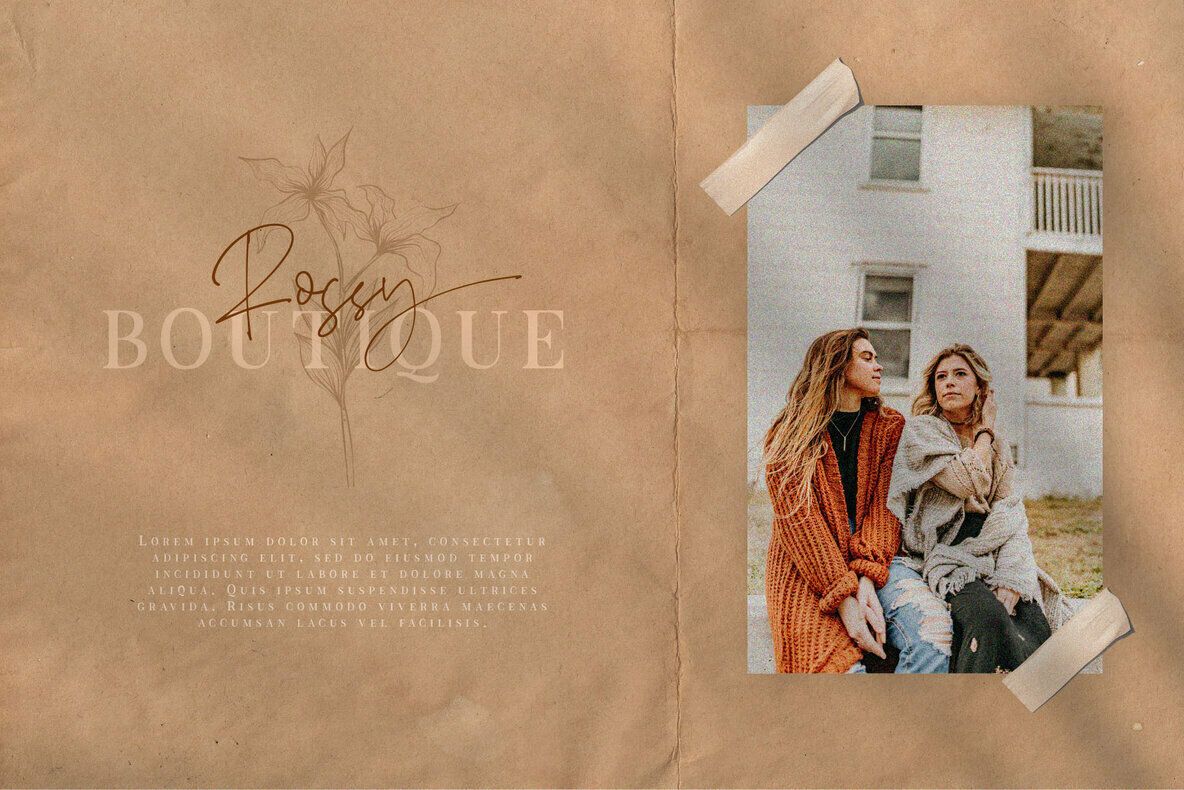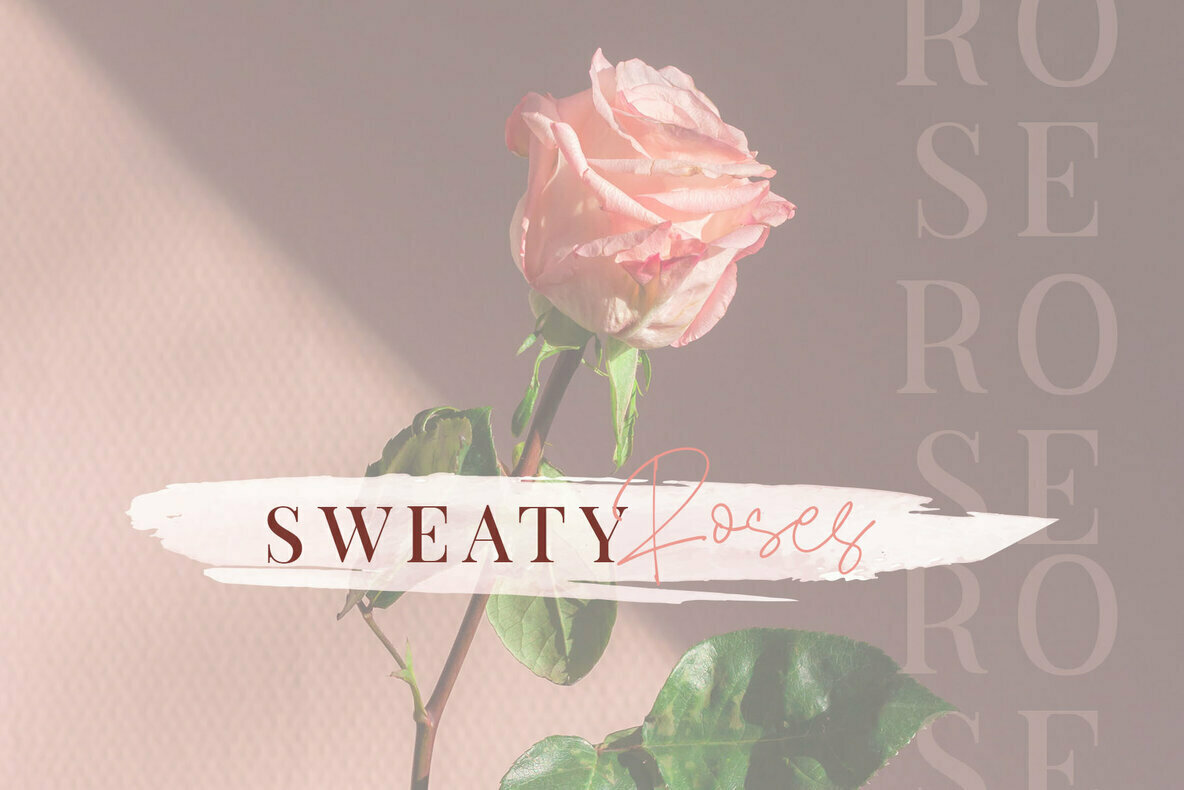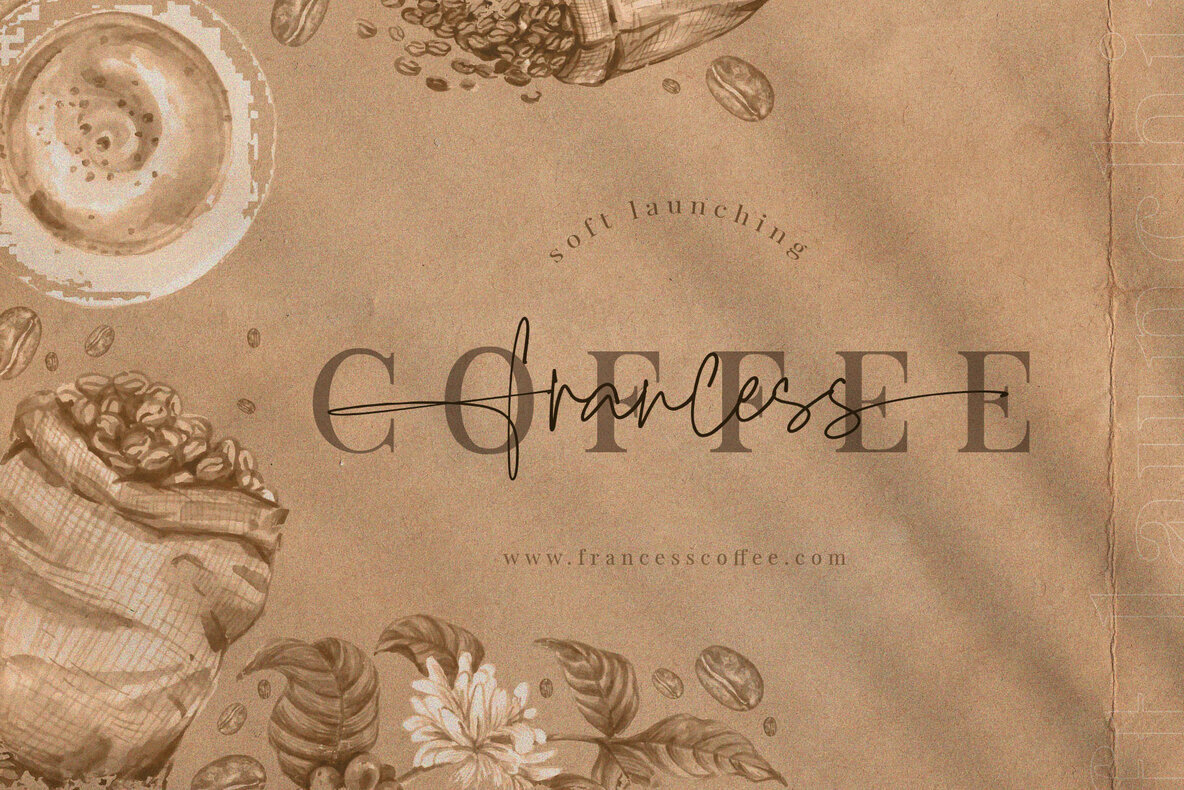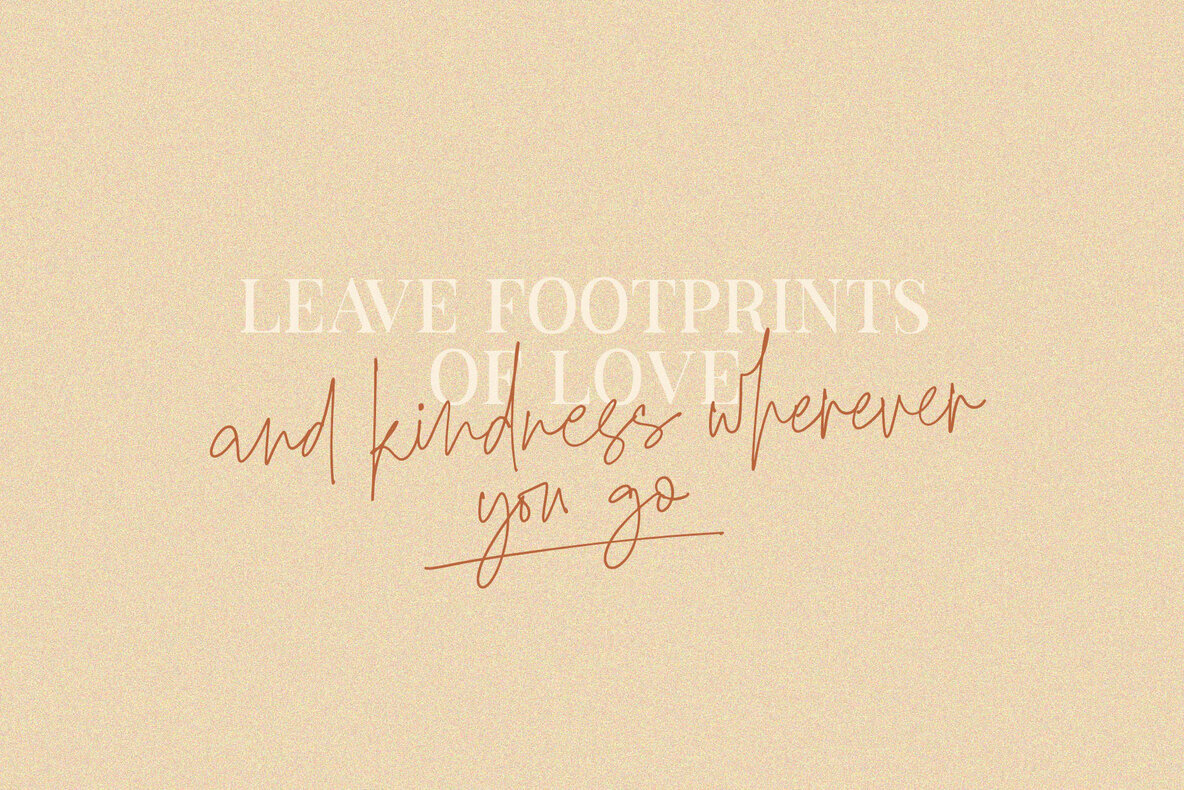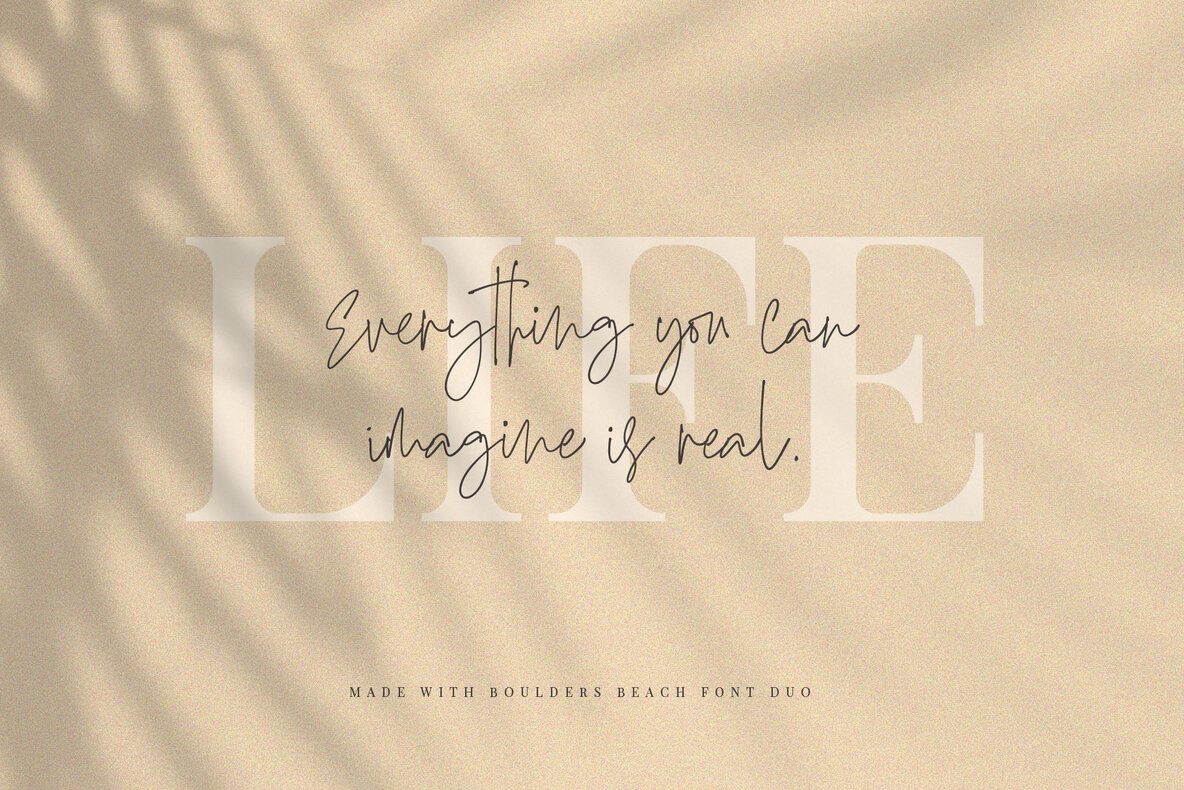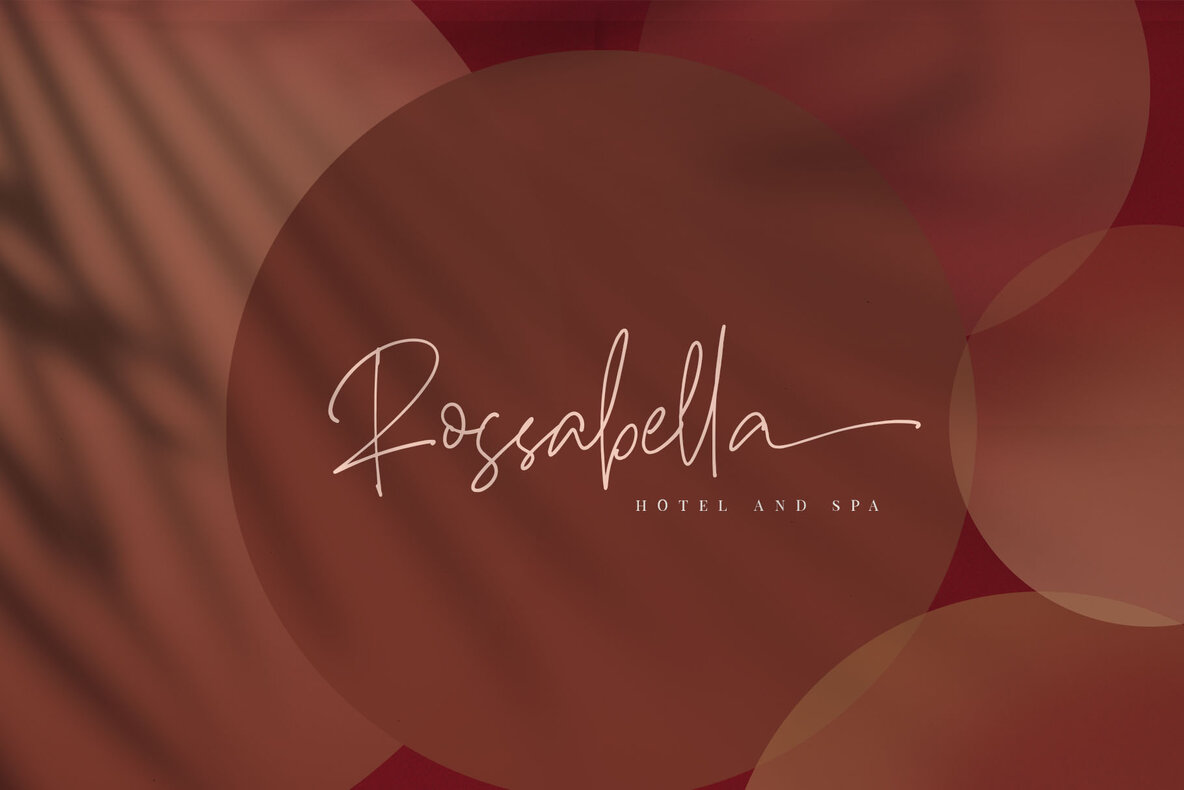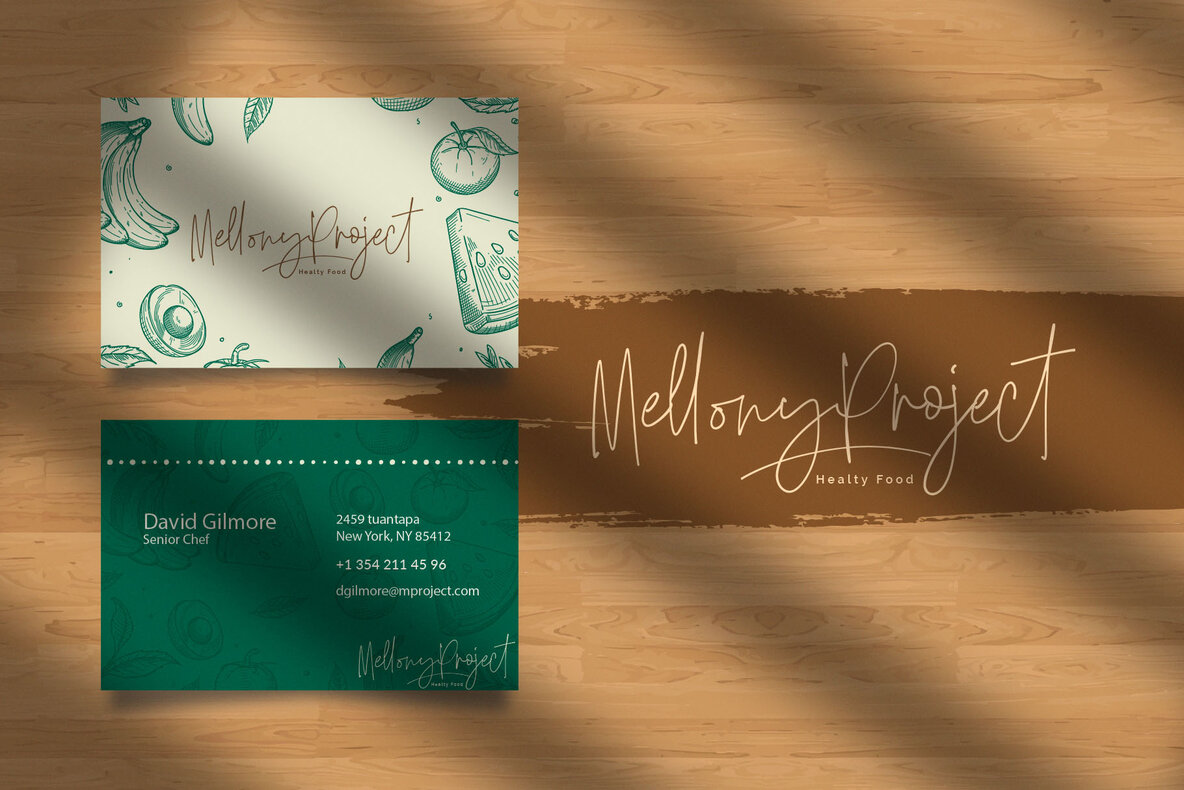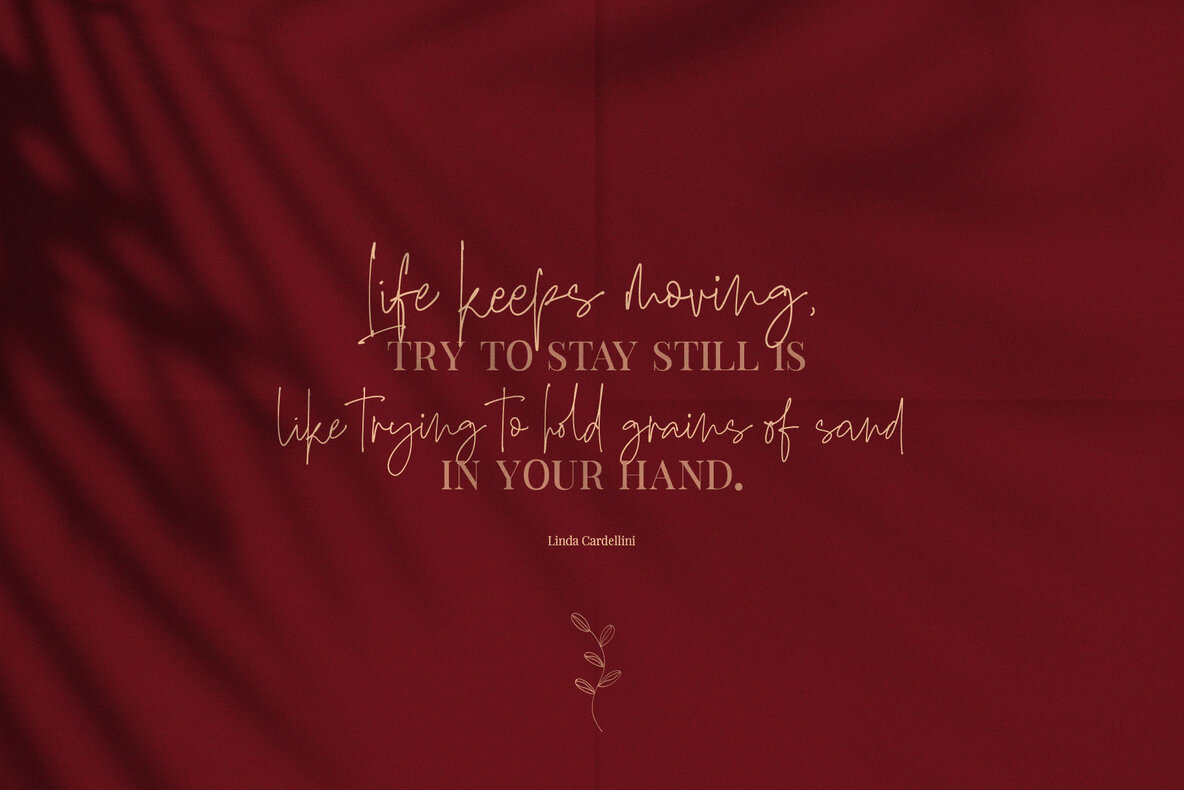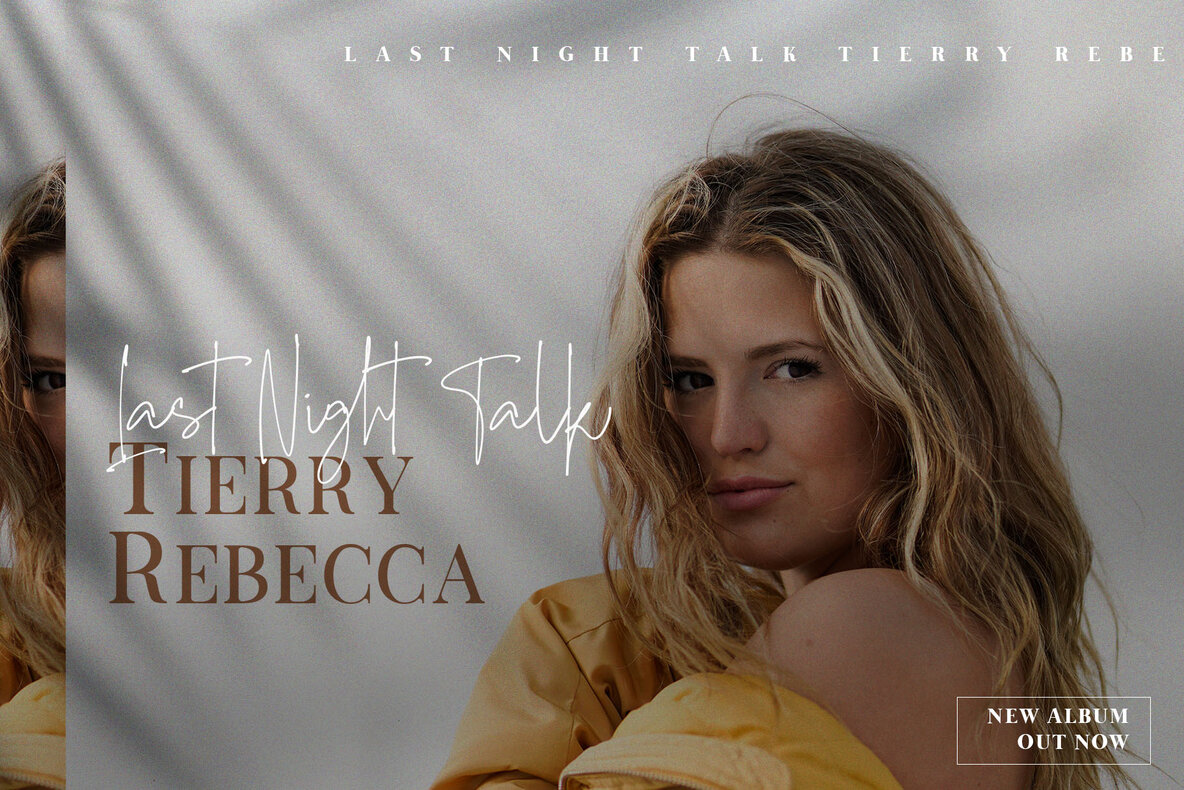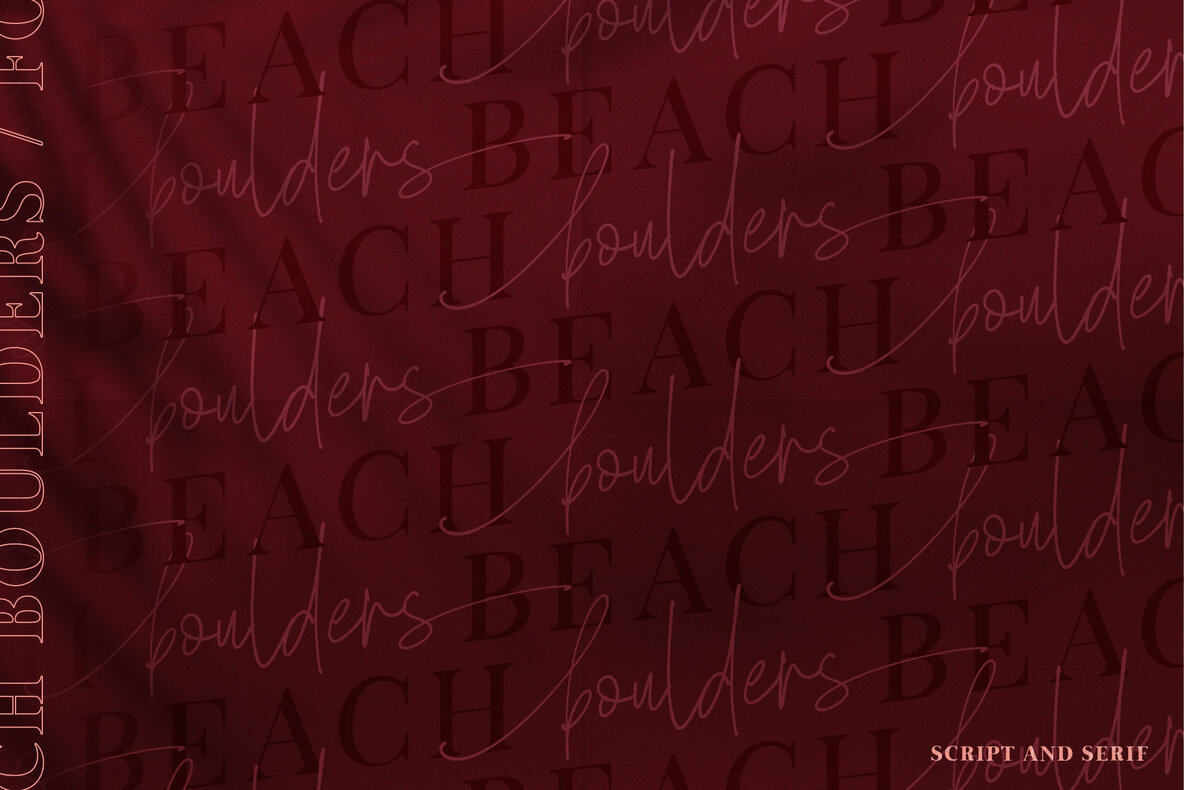
Boulders Beach Font Duo
The Boulders Beach Font Duo, with its modern and elegant design, lends sophistication to your creative projects. This versatile pair is ideal for branding, logos, invitations, and mastheads, offering a seamless blend of serif and script aesthetics for a dynamic visual appeal.Boulders Beach Font Duo: Modern Elegance for Branding